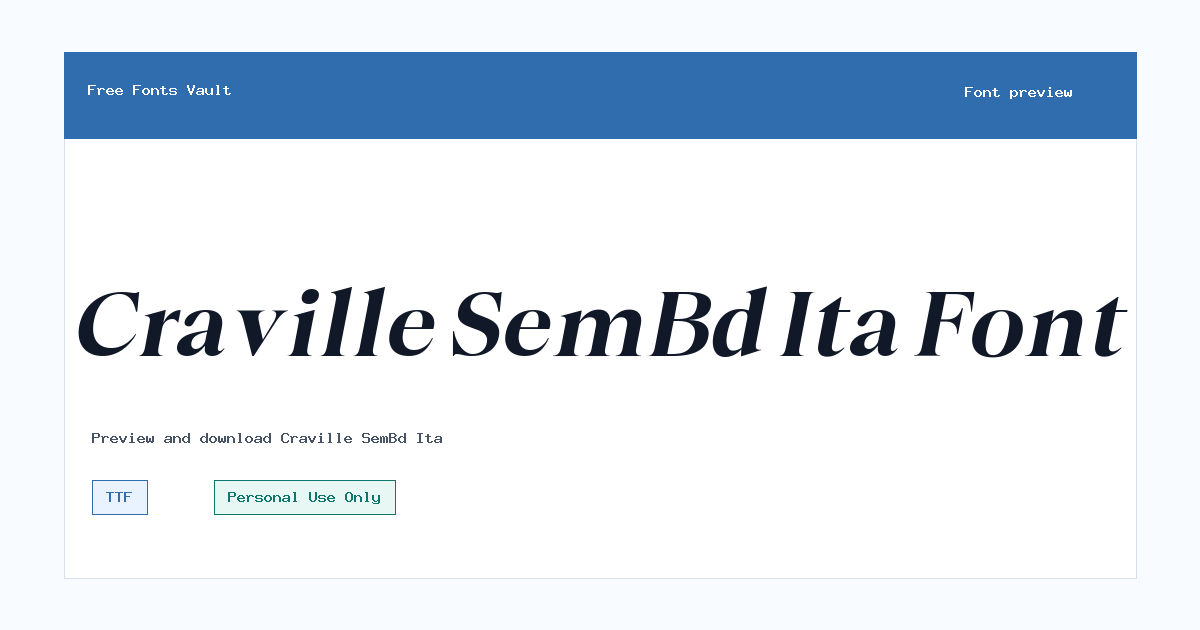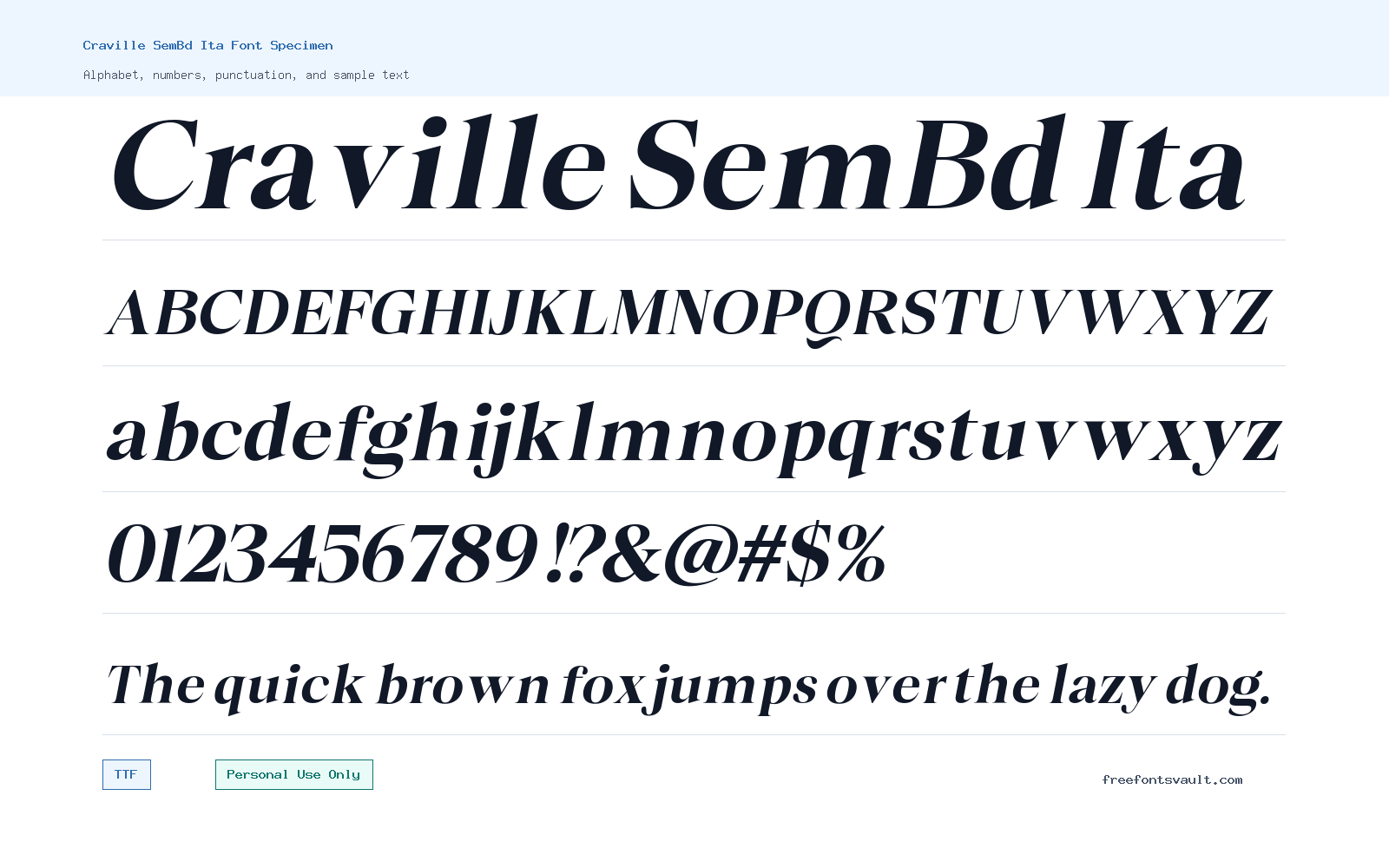
Craville SemBd Ita
Craville SemBd Ita font preview showing the family name
Craville SemBd Ita Font
Craville SemBd Ita font specimen showing alphabet, numbers, and sample text
Craville SemBd Ita font.
Craville SemBd Ita is a semi-bold italic serif font style from the Craville Serif Font Family. It is suited to visitors who want a slanted, heavier serif look for display text, personal design drafts, and font pairing experiments.
About Craville SemBd Ita
Craville SemBd Ita gives you the weight of a semi-bold style with the movement of italics. That combination can be useful when a design needs emphasis without becoming as heavy as a full bold headline. Since the file is a serif style, it is a better fit for expressive titles, short phrases, poster text, invitation mockups, quote graphics, packaging studies, and editorial-style layouts than for long blocks of small body copy. The italic angle can add a more active tone, so it is worth testing the font with your own words before deciding whether it feels elegant, dramatic, formal, or too strong for the project.
For logo work and branding mockups, use Craville SemBd Ita carefully. Semi-bold italic serif fonts can look distinctive in short names, initials, badges, and title marks, but the same slant can reduce clarity when a word is long or the design is viewed at a small size. Try the preview with uppercase, lowercase, numbers, punctuation, and the exact brand name you plan to test. If the letters feel too compressed or too decorative for a primary logo, consider using it as an accent style instead: a tagline, campaign title, label detail, pull quote, or social graphic headline.
• Semi-bold italic styling for stronger emphasis in display text
• Serif family style suitable for titles, quotes, posters, and editorial mockups
• Single listed style with italic posture and 700 font weight
• Poster headlines and event title mockups
• Quote graphics, social posts, and editorial pull quotes
• Personal logo studies, badge concepts, and wordmark experiments
• Invitation drafts, book-cover tests, and packaging layout ideas
• Pairing tests with simple sans-serif fonts for contrast
Use Craville SemBd Ita where a short piece of text needs a confident italic serif voice. Keep headlines short, check spacing manually, and test it at the final display size. For pairing, try a clean sans-serif for body copy or navigation so the italic serif remains the accent rather than competing with other decorative styles. Avoid setting long paragraphs in this style unless the preview stays comfortable to read.
What kind of font is Craville SemBd Ita?
It is a semi-bold italic serif font style from the Craville Serif Font Family.
Is this good for logos?
What should I pair it with?
Pair it with a plain sans-serif or a quiet text serif. Let Craville SemBd Ita handle emphasis, titles, or accent words while the companion font handles longer reading text.